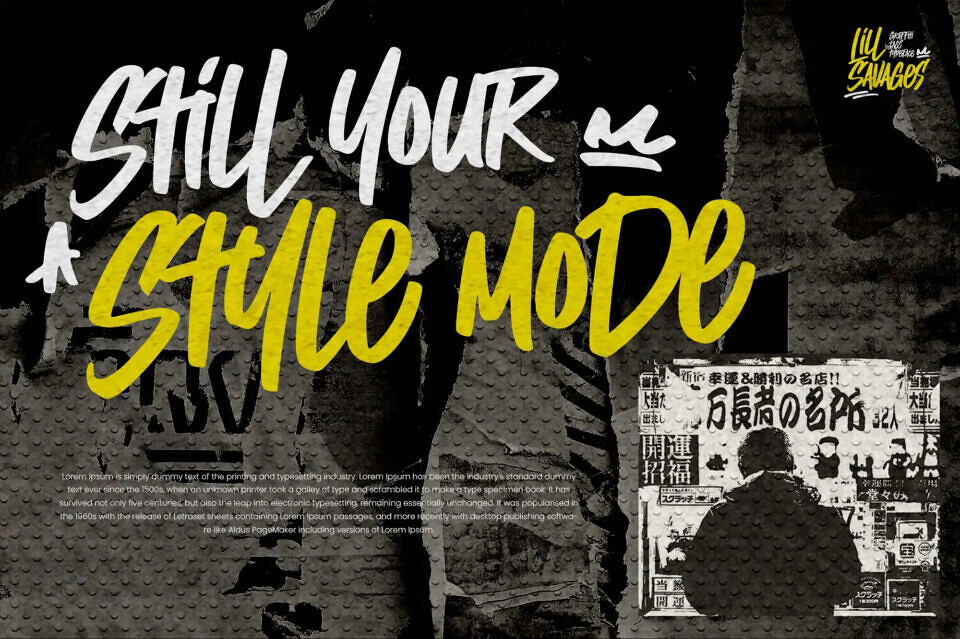
Lill Savages offers a gritty, urban font inspired by street art. Its bold, edgy style features quirky details and distinctive shaping, making it ideal for designs that need to make a bold statement. With its unique look, this font is perfect for adding an urban touch to your creations.